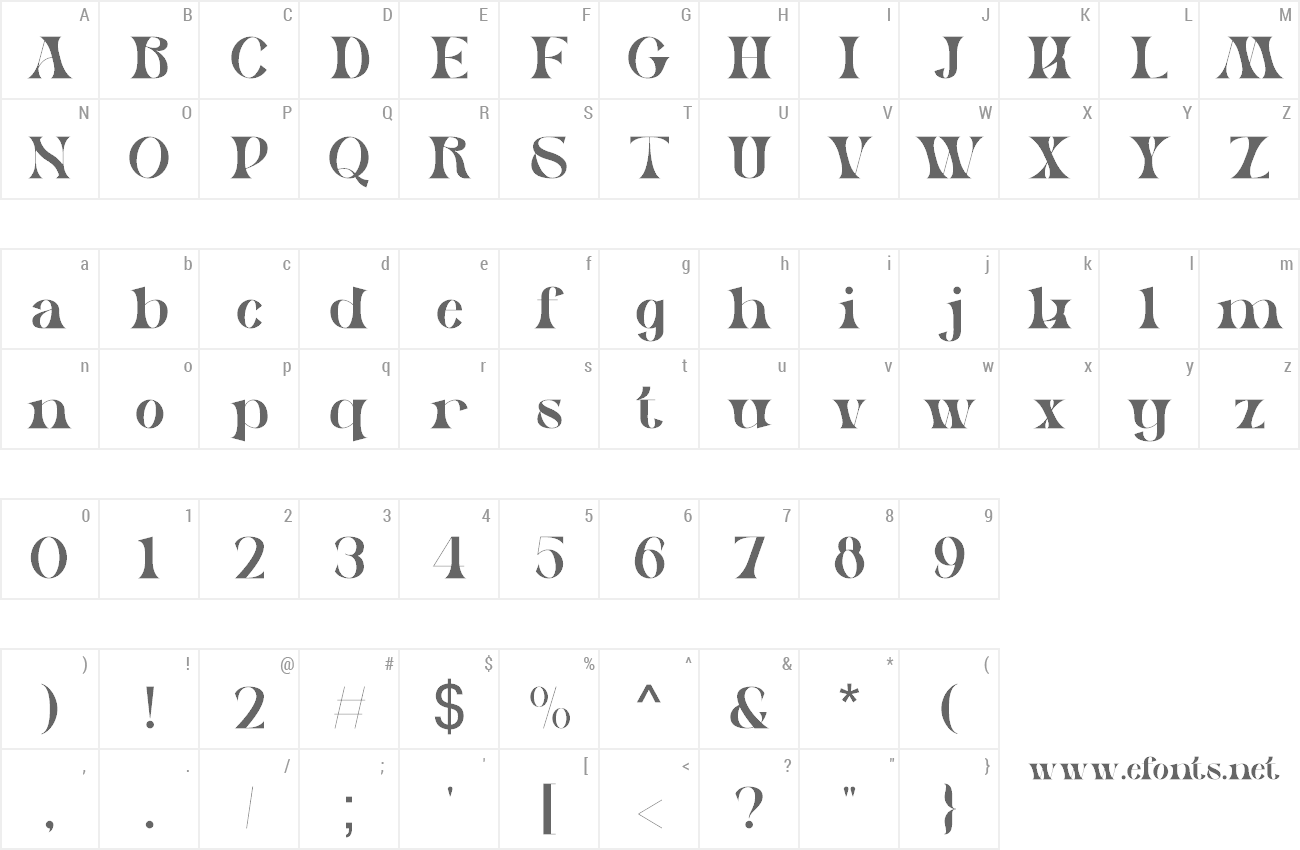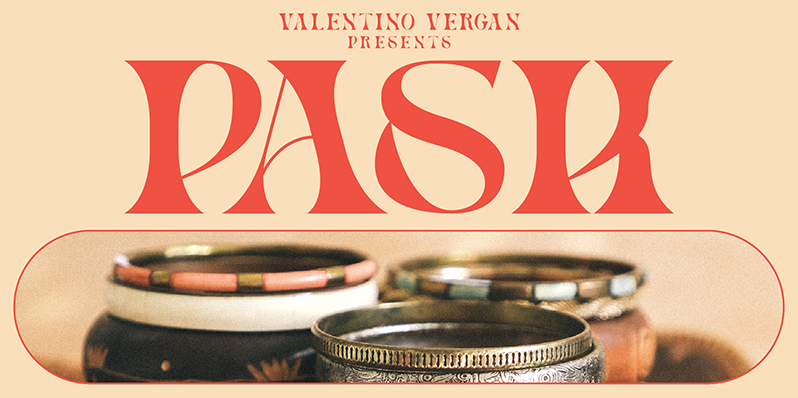
Pask is a retro inspired variable font family. Pask has a high-contrast and a thin hairline, this gives the typeface a bold and retro look. Pask comes with standalone fonts and a variable version, the variable version allows you to adjust the width and slant. Pask can cover a wide range of project such as: branding, mastheads, magazines, logos, blog posts, quotes, product packaging, advertisements and much more. This font is free for PERSONAL USE. If you need more information you can contact me at: valentinovergan@gmail.com _____ FOR PERSONAL AND COMMERCIAL USE, please download here: https://fontbundles.net/valentinovergan/2516402-pask-variable-retro-font-family _____ My work: https://www.behance.net/valentinovergan https://www.instagram.com/valentinovergan |